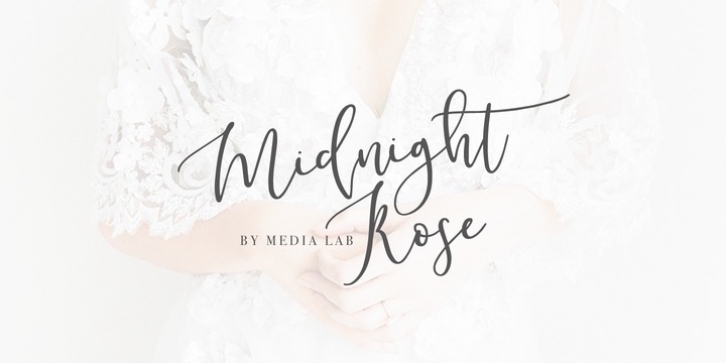
This modern calligraphy script has been attentively written, with gentle curves to produce a font that’s completely distinctive and original. It contains a full set of lower & uppercase letters, a large range of punctuation, numerals, and multilingual support. Perfect for adding an elegant and unique touch to your lettering projects and branding.
Also with their help, you can create a Wedding lettering or a beautiful frame for your home. Or just use for your small business, book covers, stationery, marketing, magazines and more.